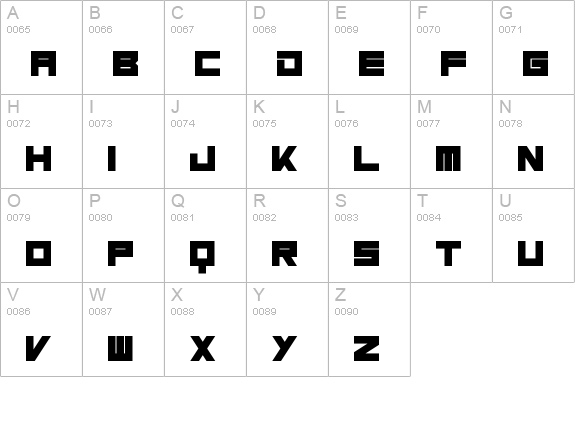
Massive Bassline Font Details
Massive Bassline is a free for personal use font in the Modern > Techno category, designed by Darrell Flood. It has been downloaded 65 times and is available for Windows, Mac and Linux.
The Massive Bassline font is a bold and powerful typeface designed to make a statement. With its strong, thick lines and distinct presence, this font is perfect for creating eye-catching designs that demand attention. Whether used for headlines, posters, or branding, Massive Bassline will add a touch of edginess and modernity to any project.